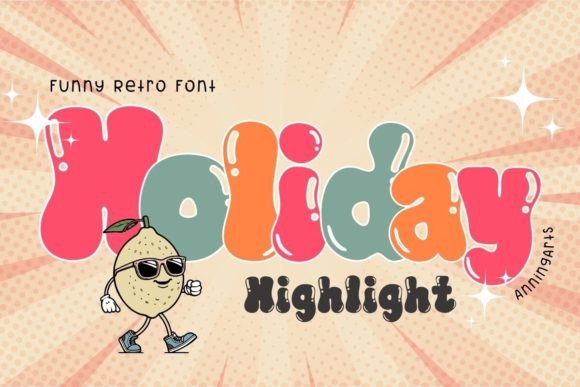
Holiday Highlight: The Perfect Display Font for Your Brand
It started with a simple, frustrating moment in my small online shop. I was staring at a stack of holiday greeting cards I had designed myself, and the text felt flat, uninviting, and completely out of sync with the cozy, festive vibe I wanted to convey. My customers were loving my handmade candles and custom mugs, but the visual identity on my packaging wasn't telling the full story. That afternoon, I realized that upgrading my brand's typography was exactly what I needed to make my business look more polished and memorable. That is when I discovered Holiday Highlight, a cute display font that instantly transformed my design workflow.
Holiday Highlight is a cute display font designed specifically to bring warmth and personality to your creative projects. Unlike standard typefaces that often feel too rigid or corporate, this Display typeface captures the joy of the season while maintaining a professional edge. When I first applied it to my product labels, the difference was immediate; my jars looked like they belonged in a boutique window rather than a cluttered garage sale. For any entrepreneur looking to elevate their visual presence, finding the right Fonts can be the difference between a forgettable brand and one that customers remember.
Holiday Highlight for Social Media Posts and Digital Content
Holiday Highlight serves as an excellent choice for creating eye-catching social media posts and digital content that stands out in a crowded feed. As a small business owner, I know how critical it is to stop the scroll, especially during the busy holiday season. Using this Display style for Instagram stories, Facebook banners, and Pinterest pins allowed me to create cohesive graphics that felt personal yet high-quality. The playful nature of these Fonts works perfectly for announcing sales, sharing behind-the-scenes glimpses, or highlighting new product launches without overwhelming the viewer.
When designing digital ads or website banners, readability combined with charm is key. Holiday Highlight offers just the right balance, ensuring your message is clear while adding a touch of whimsy. Whether you are promoting a limited-edition shirt collection or a special seasonal menu, applying this typeface helps your banners and content feel inviting. It transforms a generic promotional graphic into a piece of branded art that encourages engagement and shares well across platforms.
Holiday Highlight for Mugs, Shirts, and Merchandise Printing
Holiday Highlight shines brightest when used on physical products like mugs, shirts, and other merchandise that represent your brand identity. I recently decided to print some custom holiday-themed t-shirts and coffee mugs for my loyal customers, and the results were stunning. Because Holiday Highlight is a Display font with strong character, it reproduces beautifully on various materials, from fabric transfers to ceramic printing. The curves and details remain crisp, making your merchandise look like a premium item rather than a cheap knockoff.
For entrepreneurs selling apparel or drinkware, the legibility of the Fonts is crucial. This typeface ensures that even smaller text on a tag or a sleeve remains readable. By using Holiday Highlight for your product designs, you create a consistent visual language that customers can recognize instantly. It turns a simple mug or shirt into a collectible piece of your brand's story, increasing the perceived value of your items and encouraging repeat purchases.
Holiday Highlight for Cards, Stationery, and Greeting Materials
Holiday Highlight is perfect for creating a wide variety of new designs to match products such as cards and stationery that foster deeper connections with your audience. In my business, sending thank-you notes and holiday cards has always been a way to show appreciation, but until now, they lacked a unique flair. Switching to this Display font gave my stationery a handcrafted feel that resonated with clients who appreciate attention to detail.
The versatility of these Fonts allows for creative freedom in layout and composition. You can use them for elegant wedding invitations, rustic farm-to-table menus, or cheerful birthday announcements. The warm tone of Holiday Highlight makes every printed piece feel intentional and thoughtful. Whether you are designing a full set of business cards or a series of event flyers, this typeface adds a layer of sophistication that elevates your entire brand aesthetic.
Holiday Highlight for Packaging Design and Product Labels
Holiday Highlight provides the ideal solution for packaging design and product labels where first impressions matter most. When I redesigned my candle jar labels, I wanted something that screamed "handmade" and "special." This cute display font delivered exactly that. It wraps around curves and fits neatly into small spaces without losing its charm, making it an excellent tool for shirts, stickers, and box inserts.
Consistency in packaging builds trust. By using Holiday Highlight across all your product lines, you create a unified brand experience that feels professional and reliable. The distinct personality of the Fonts helps your products stand out on a shelf or in a virtual cart. It signals to customers that you care about the presentation of your goods, which often translates to higher satisfaction and better reviews.